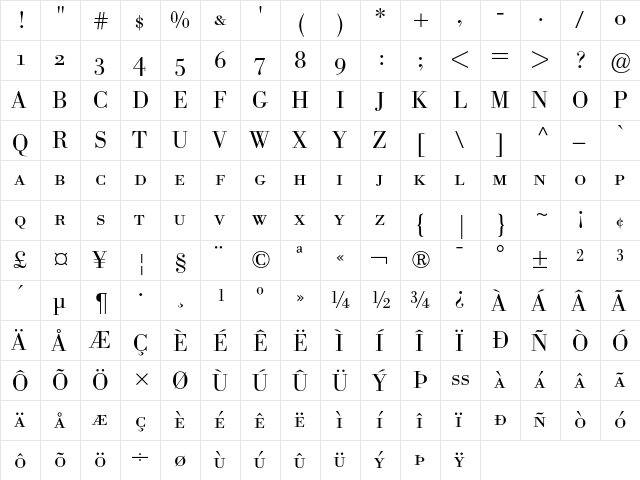
Bodoni BE Light Small Caps & Oldstyle Figures
Design Context for Bodoni BE Typeface
Bodoni BE carries the refined structure of traditional serif typography, with bracketed terminals and considered proportions that communicate credibility and craft. The delicate stroke weight brings airiness and refinement to layouts.
Pro Tip: Set Bodoni BE at slightly larger body copy sizes than you would a regular-weight serif to compensate for its delicate stroke contrast.